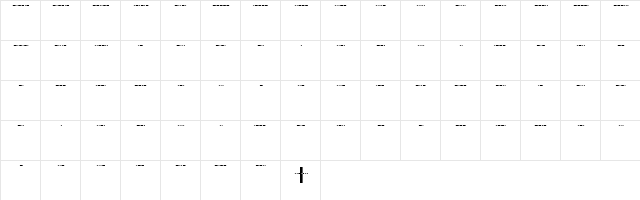
Morse Code Regular Font Preview
Morse Code Regular
Morse Code Regular Font Details
Design Context for Morse Code Typeface
Morse Code uses fixed-width spacing throughout, giving it the structured, systematic character associated with coding environments and technical documentation.